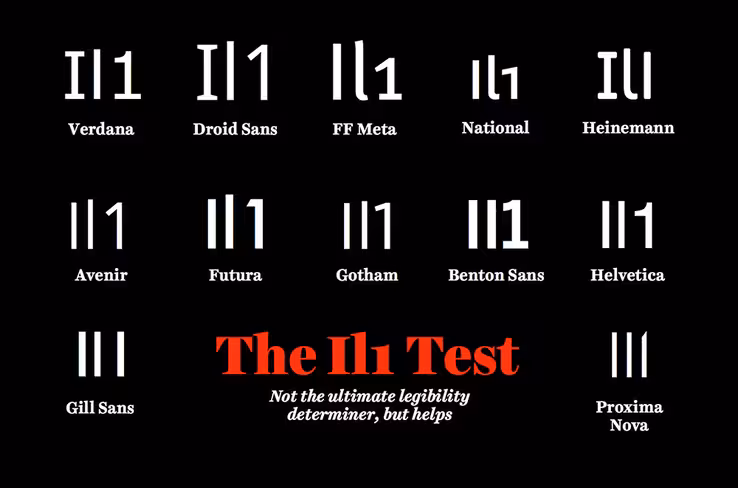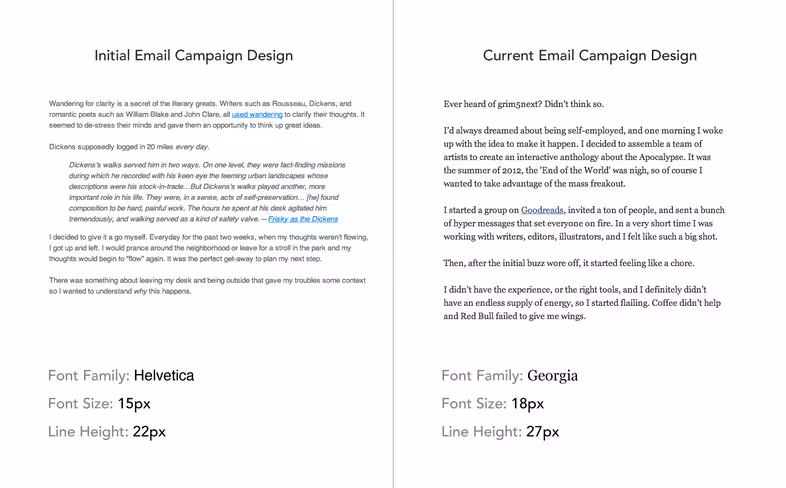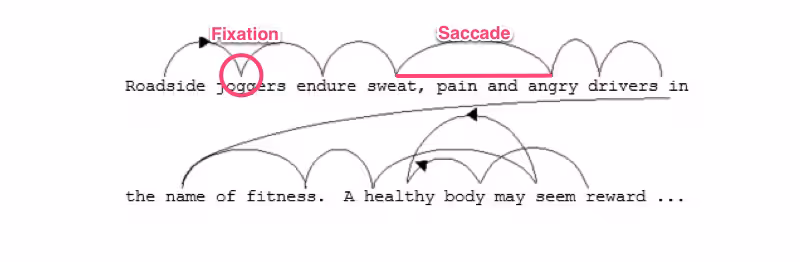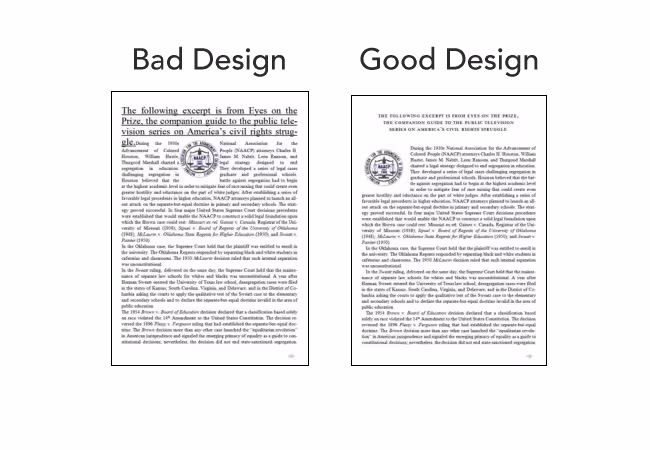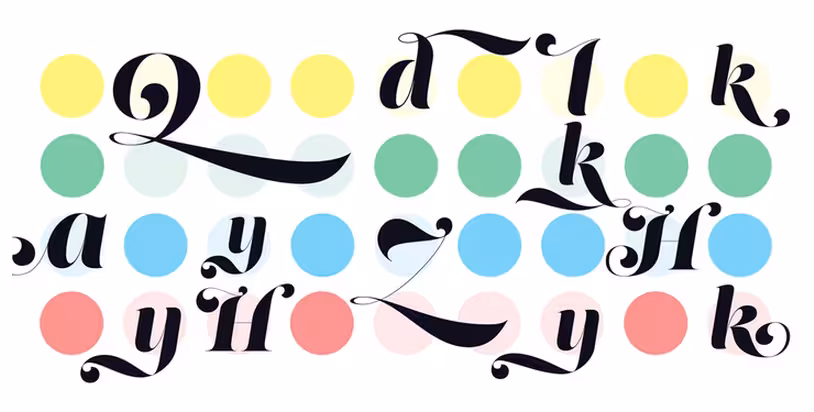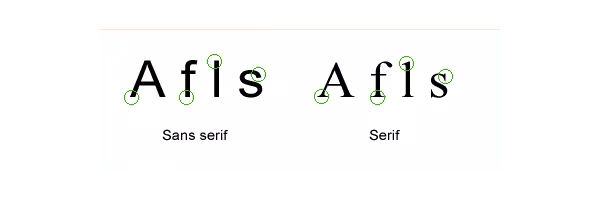
The science behind fonts (and how they make you feel)
I’ve noticed how seemingly small things like font and the spacing between letters can impact how I feel when reading online.
The right font choice along with the absence of sidebars and popups makes everything feel easier and better to read.
Websites like Medium, Signal vs. Noise, and Zen Habits are like yoga studios for content. Their presentation of content puts me at peace while reading, allowing me to fully focus on the stories without distraction.
Just look at the difference between Medium and Cracked:
Exhibit A) Medium.com
Exhibit B) Cracked.com
When you compare the two, it’s obvious which one makes you feel like crud.
The Cracked layout is painful to look at. Your eyes squint and dart, constantly second-guessing what you’re reading now with what you should be reading next.
After experimenting with how we display content on the ooomf blog, I discovered there’s an element of science behind why we feel this way toward certain typefaces and layouts.
How we read
When we read, our eyes follow a natural pattern called a Scan Path.
We break sentences up into scans (saccades) and pauses (fixations). Here’s theScan Path for a typical reader:
Your eyes typically move across a page for between 7 to 9 letters before needing to pause to process what you’re reading. As you scan a sentence, no useful visual processing is happening in your brain. Visual processing is completely dependent upon the information taken in when you pause.
So why does this matter? Understanding the way we read is important for designing how words look because you can directly impact someone’s connection to your writing with the right font and layout.
Why the right font layout makes you feel good
When I set out to write this post, I wasn’t sure I’d find scientific backing for why we feel a certain way toward certain fonts.
I thought choosing font was mostly art, with a sprinkle of science.
That was until I came across a study by psychologist Kevin Larson. Larson has spent his career researching typefaces and recently conducted a landmark study at MIT about how font and layout affect our emotions.
In the study, 20 volunteers – half men and half women – were separated into two groups. Each group was shown a separate version of The New Yorker – one where the image placement, font, and layout were designed well and one where the layout was designed poorly:
good-bad
The researchers found that readers felt bad while reading the poorly designed layout. Sometimes, this feeling would be expressed physically with a frown.
The corrugator supercilii facial muscles that help produce a frown have been linked to the amygdala, an area of your brain responsible for emotion.
Meanwhile, the participants who read content from the good reading layout, felt like it took less time to read and felt better.
People exposed to the well-designed layout were found to have higher cognitive focus, more efficient mental processes, and a stronger sense of clarity.
The researchers concluded that well-designed reading environments don’t necessarily help you understand what you’re reading better, but they do make you feel good, causing you to feel inspired and more likely to take action.
Culture impacts your preference for fonts
One explanation for why some fonts make you feel a certain way is because of deep links in culture.
For instance, Courier fonts were designed to resemble old memos written on type writers:
Many people relate Helvetica with the US Government because it’s used in tax forms.
These associations are difficult to remove and should be considered when deciding on a font choice. Here’s how Bank of America’s website would look with the Impact font associated with News headlines:
Original Bank of America website:
Bank of America website with Impact font (associated with newspaper headlines):
When the fonts are changed to Impact, Bank of America doesn’t exactly seem trustworthy.
Because fonts are designed by humans, there is usually some meaning attached to them. You don’t want to choose a font that is easily associated with something in our culture that’s markedly different than the vibe you’re trying to give off.
How to design better content
The quality of your content is the most important thing but how you present that content by choosing the right font and layout still has its place.
As French poet Paul Claudel put it, “The secret of type is that it speaks.”
“People will forgive shortcomings, follow your lead, and sing your praises if you reward them with positive emotion.”
It’s important to remember that while there is a science connected to how your words are designed, no amount of good design can save bad content.
Write well first. Design well second.